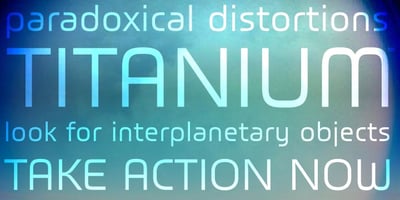
Titanium Font Family was designed by Steve Matteson and published by Ascender. Titanium contains 1 styles and family package options. Titanium is a geek-ed out, über-technoid specimen of plasma-type. Designed by Steve Matteson, this typeface is the perfect display font for your star cruiser or the weekend interplanetary lander. Like its namesake, Titanium is the strongest design for its weight capable of withstanding the jump to lightspeed without paradoxical distortions. Titanium is now available for use on home world computing devices to capture the essence of galactic travels.